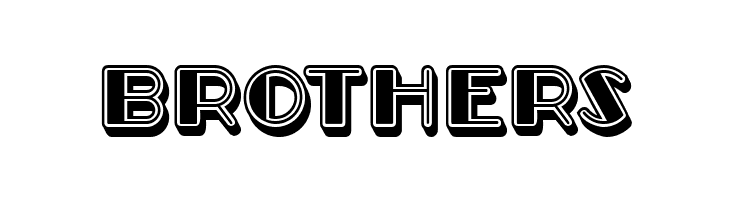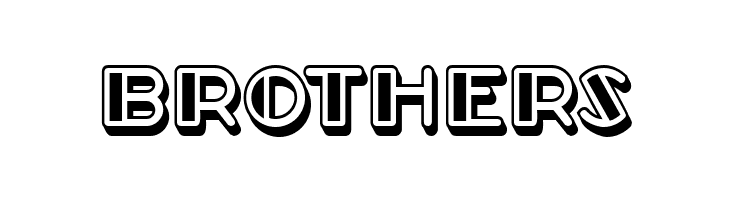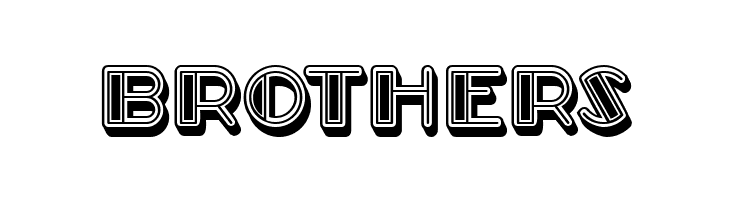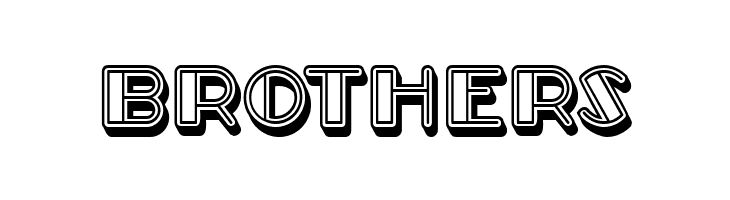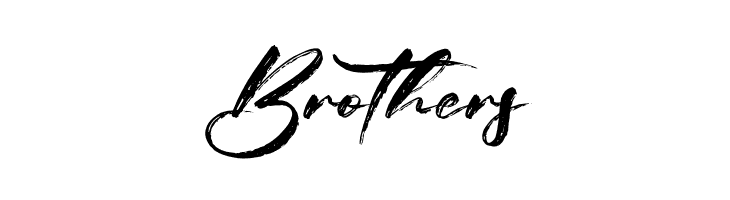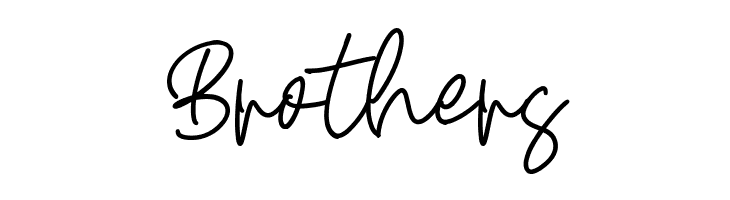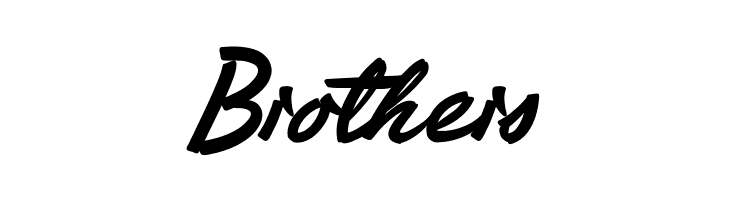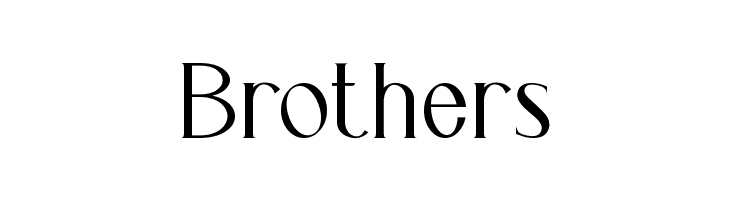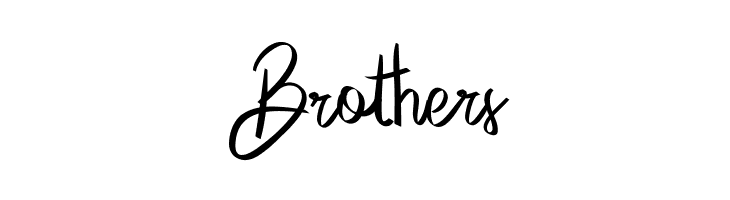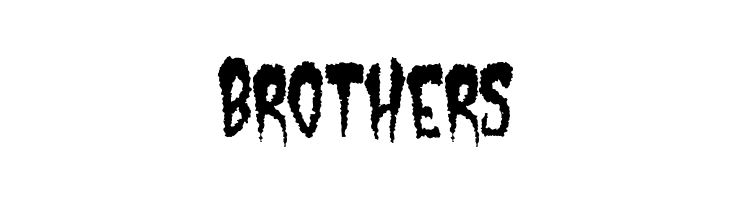
A modern serif font with high contrast and elegant, refined lines.
A sophisticated, flowing script font with elegant cursive letterforms.
A bold, outlined font with a modern, three-dimensional look.
A bold, geometric, oblique font with a three-dimensional outline effect.
A bold, geometric font with a 3D effect and oblique style, perfect for modern headlines.
A bold, decorative font with a three-dimensional effect and thick outlines.
An elegant, decorative font with intricate swirls and curls.
An elegant, decorative font with intricate swirls and flourishes.
A modern, handwritten cursive font with a fluid and elegant style.
A modern, elegant font with a clean and sophisticated design.
A rugged, hand-drawn font with a bone-like appearance, perfect for adventurous themes.
A dynamic and expressive script font with bold, artistic brush strokes.
A bold and expressive script font with smooth curves and dynamic strokes.
A lively handwritten font with fluid strokes and a casual elegance.
A graceful script font with fluid, cursive strokes and a natural handwriting style.
Elegant cursive script with a handwritten feel.
A bold, fluid script font with a natural handwritten style.
A bold, geometric font with a modern and robust style.
A bold, brushstroke-style font with a textured, hand-painted look.
A grunge-style font with an inline design and decorative serifs, offering a vintage and textured appearance.
A bold, geometric serif font with a modern vintage aesthetic.
A lively, cursive font with dynamic strokes and elegant flow.
A playful, casual handwritten font with rounded, slightly irregular letterforms.
A handwritten, signature-style font with a dynamic and artistic flair.
A bold blackletter font with intricate, angular letterforms and a gothic flair.
A graceful handwritten script font with elegant, flowing curves.
A playful, whimsical handwritten font with irregular and quirky letterforms.
A jagged, eerie font with a dripping, horror-inspired style.
A bold, decorative font with a filled, castle-like appearance and thick outlines.
A bold, decorative font with a 3D effect and intricate internal patterns.
A bold, geometric font with strong, angular lines and a modern architectural feel.
A playful, bold font with rounded edges and a hand-drawn feel.